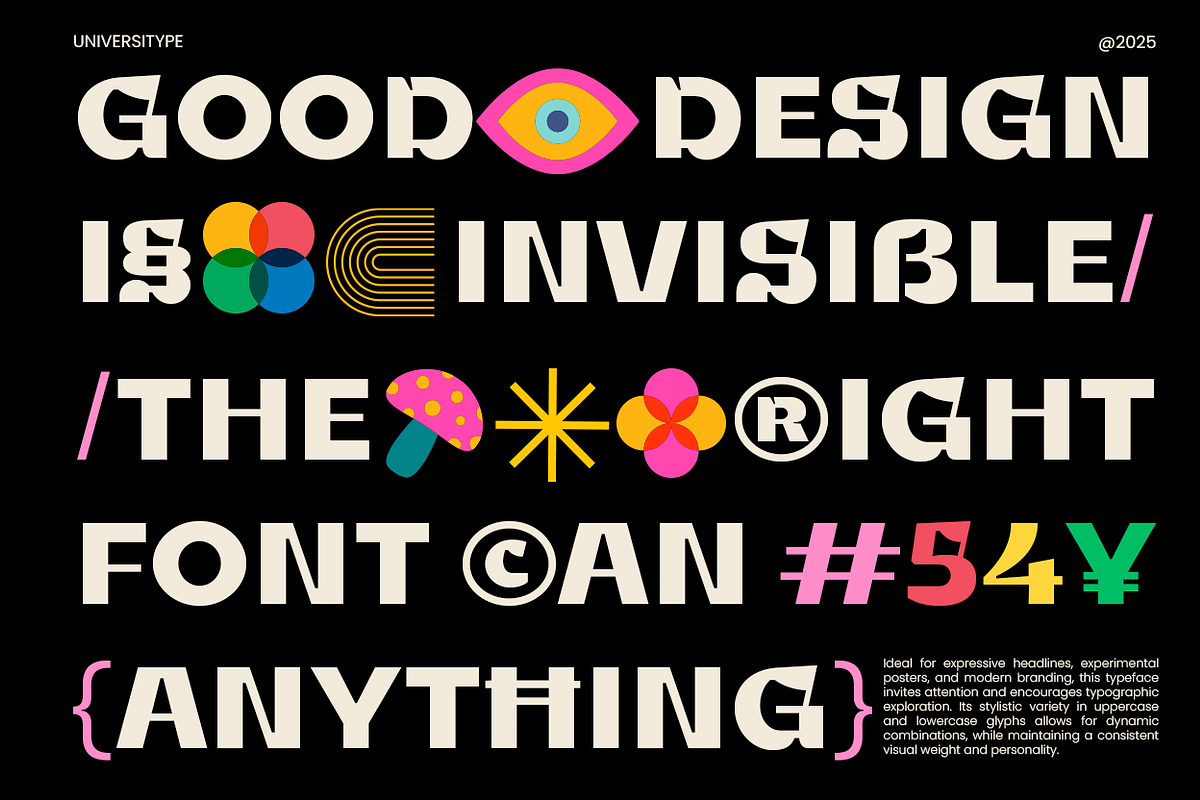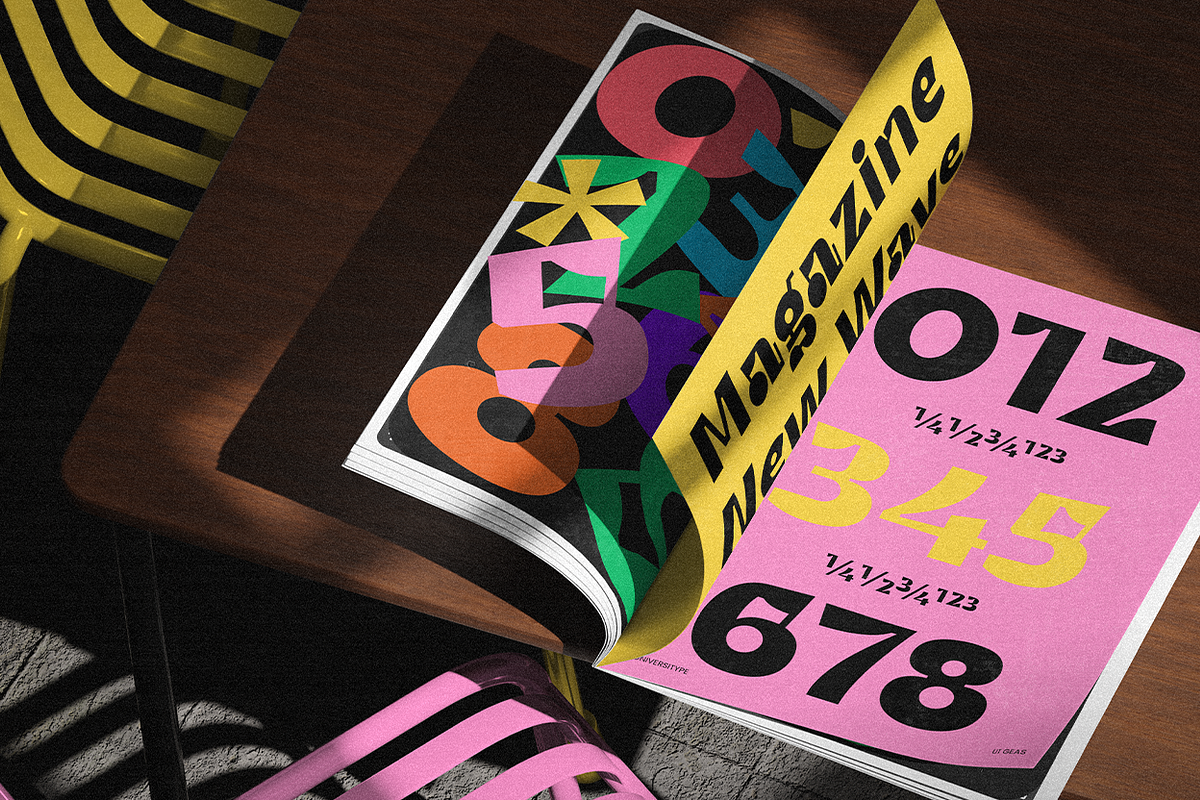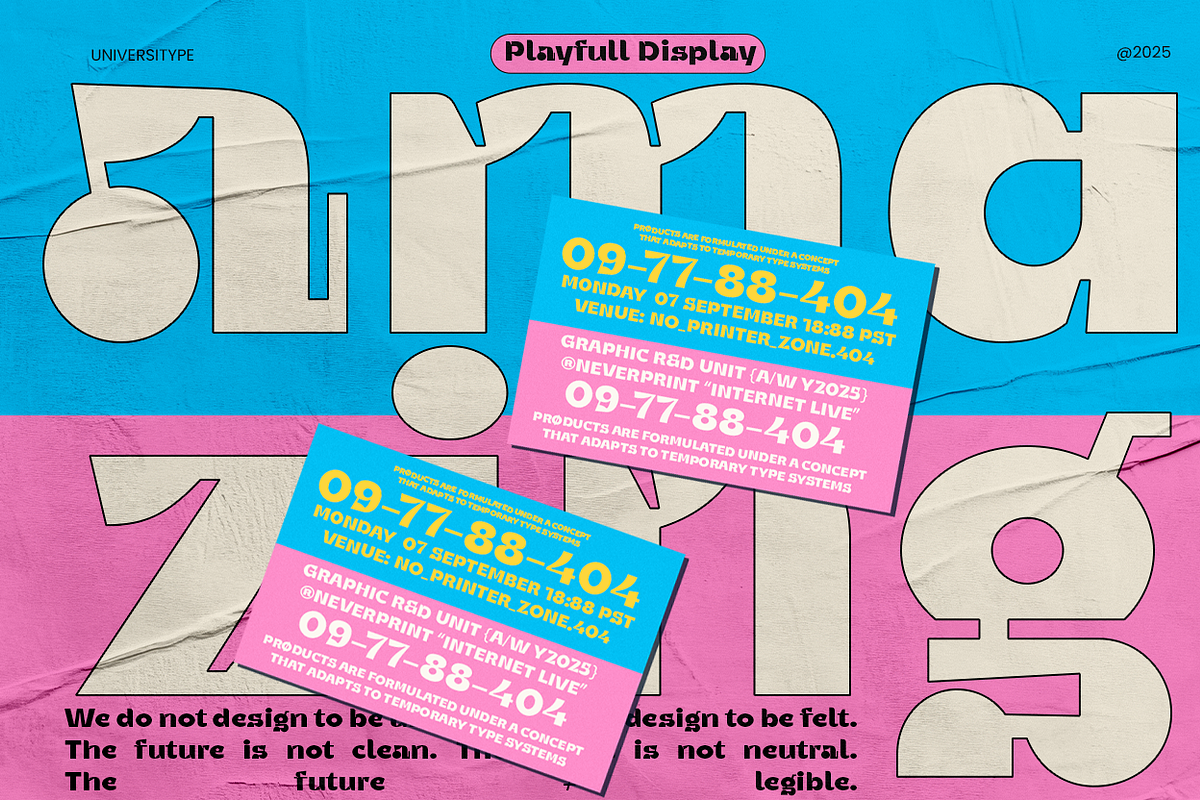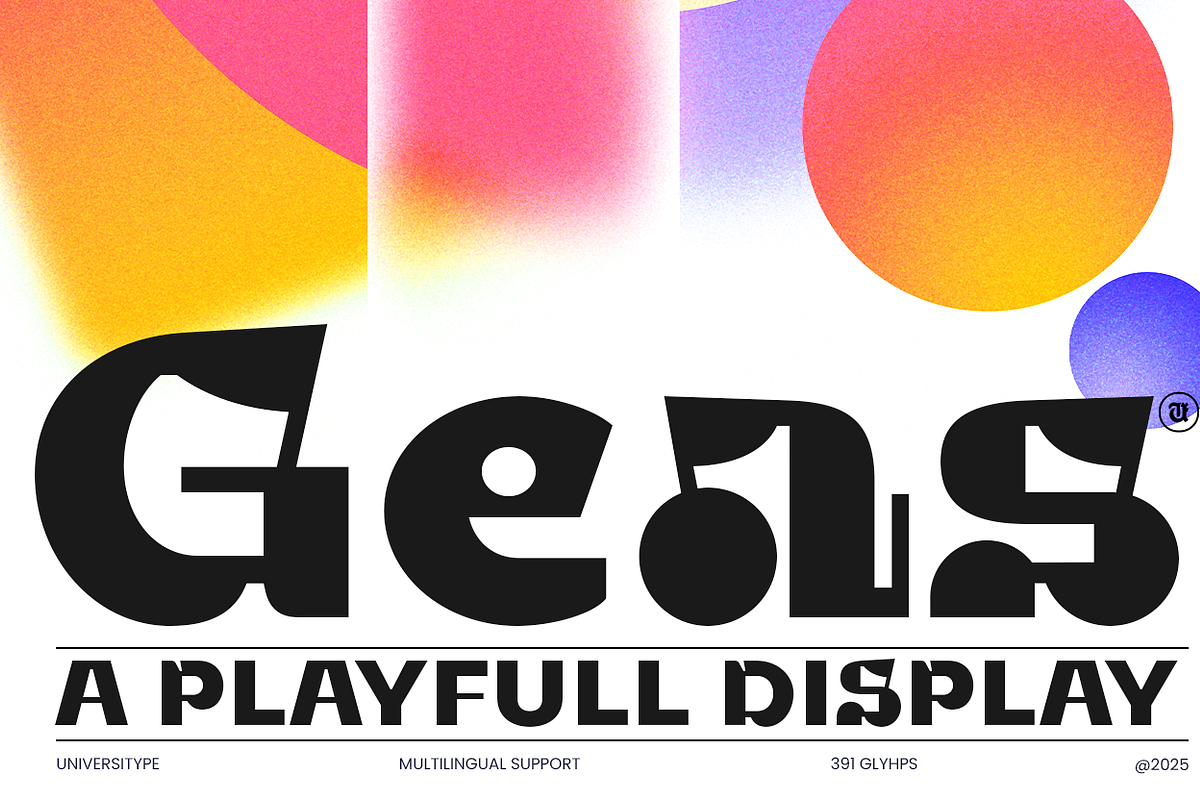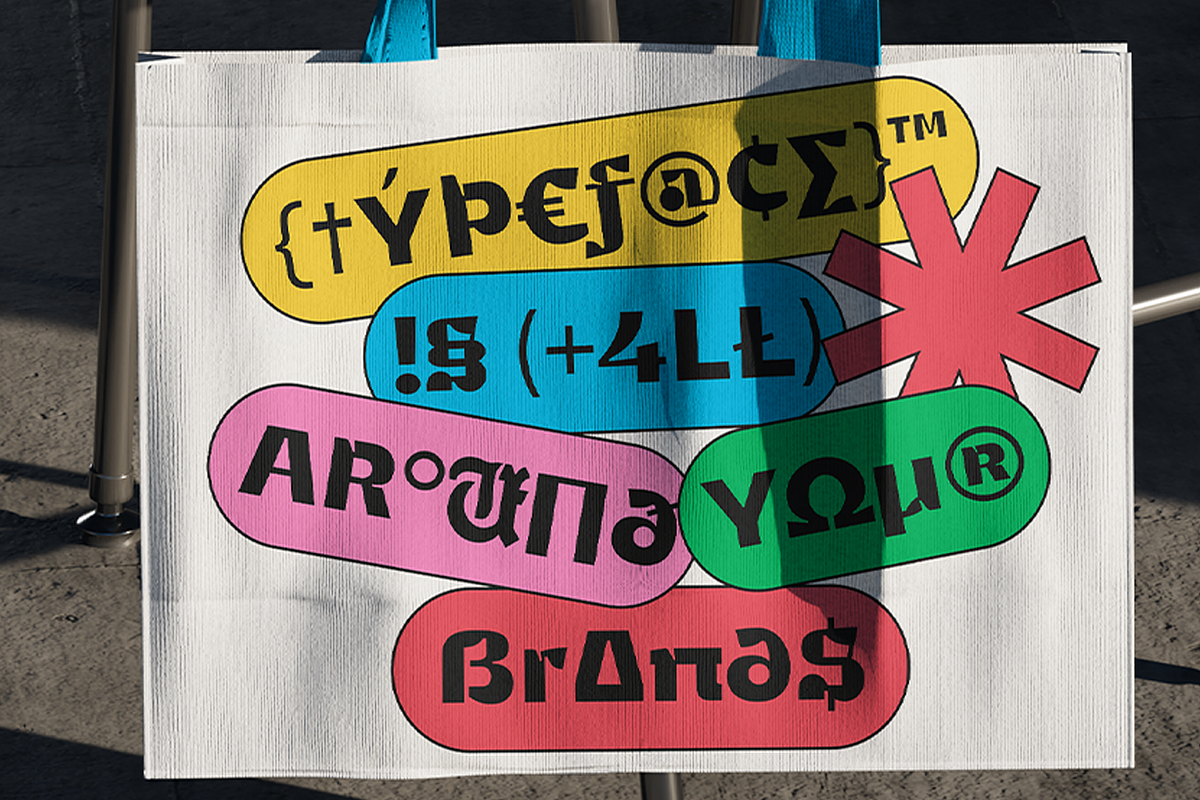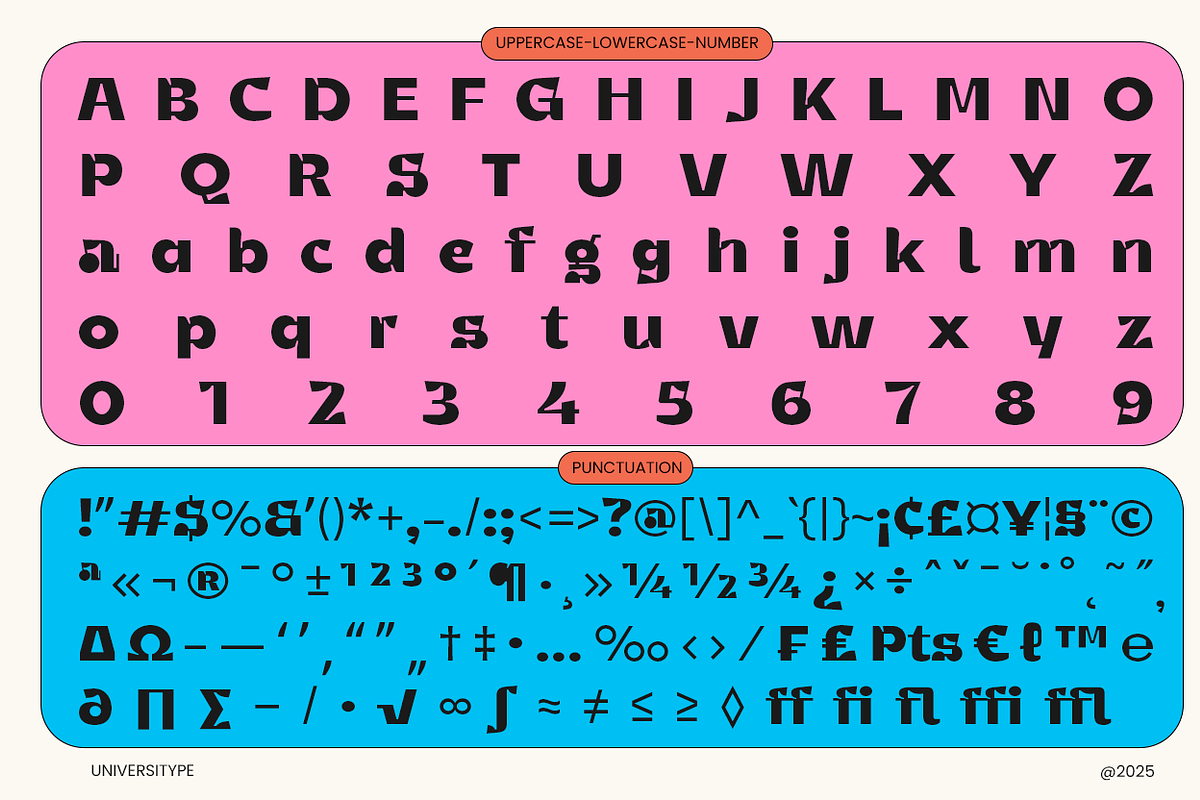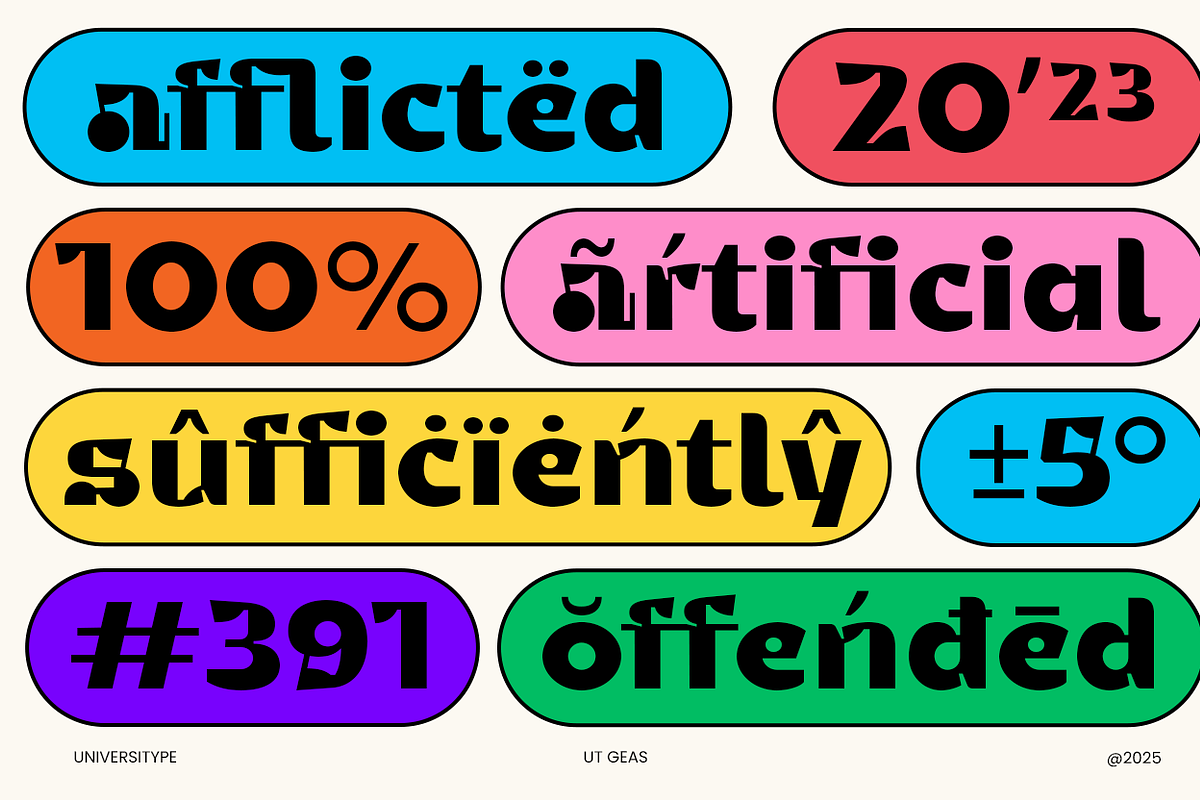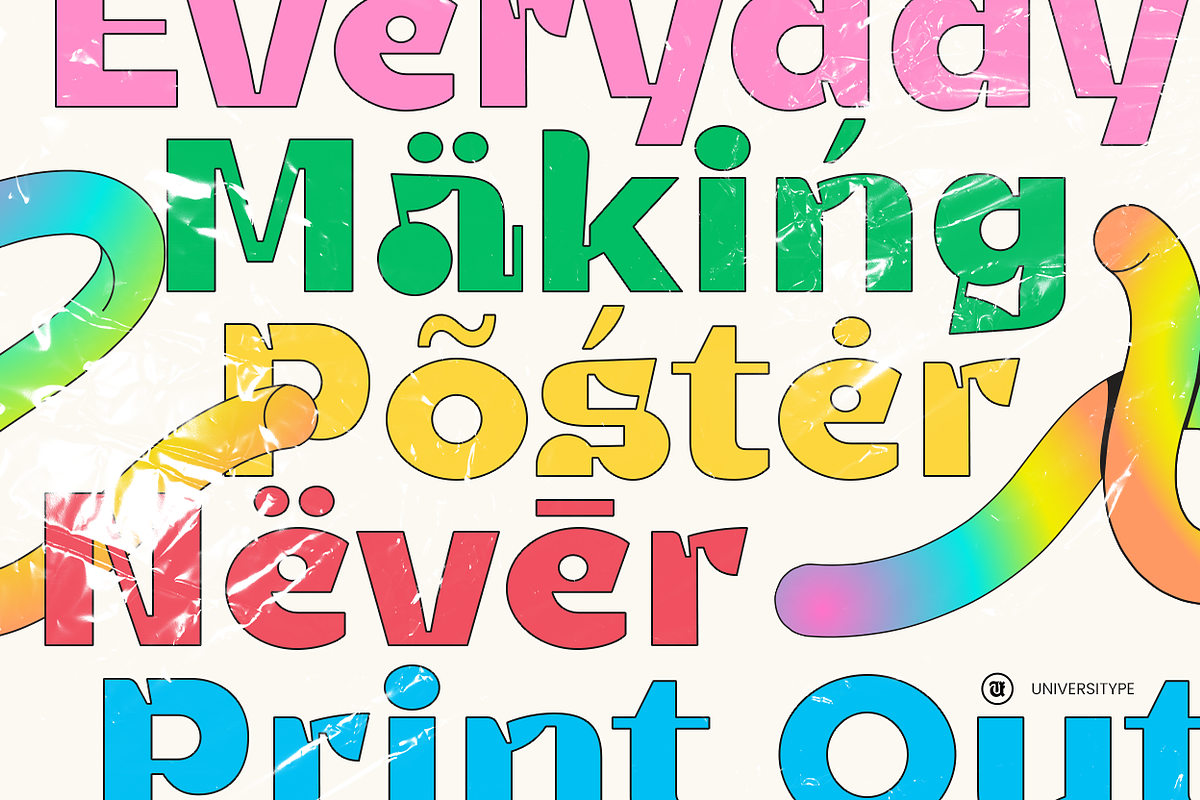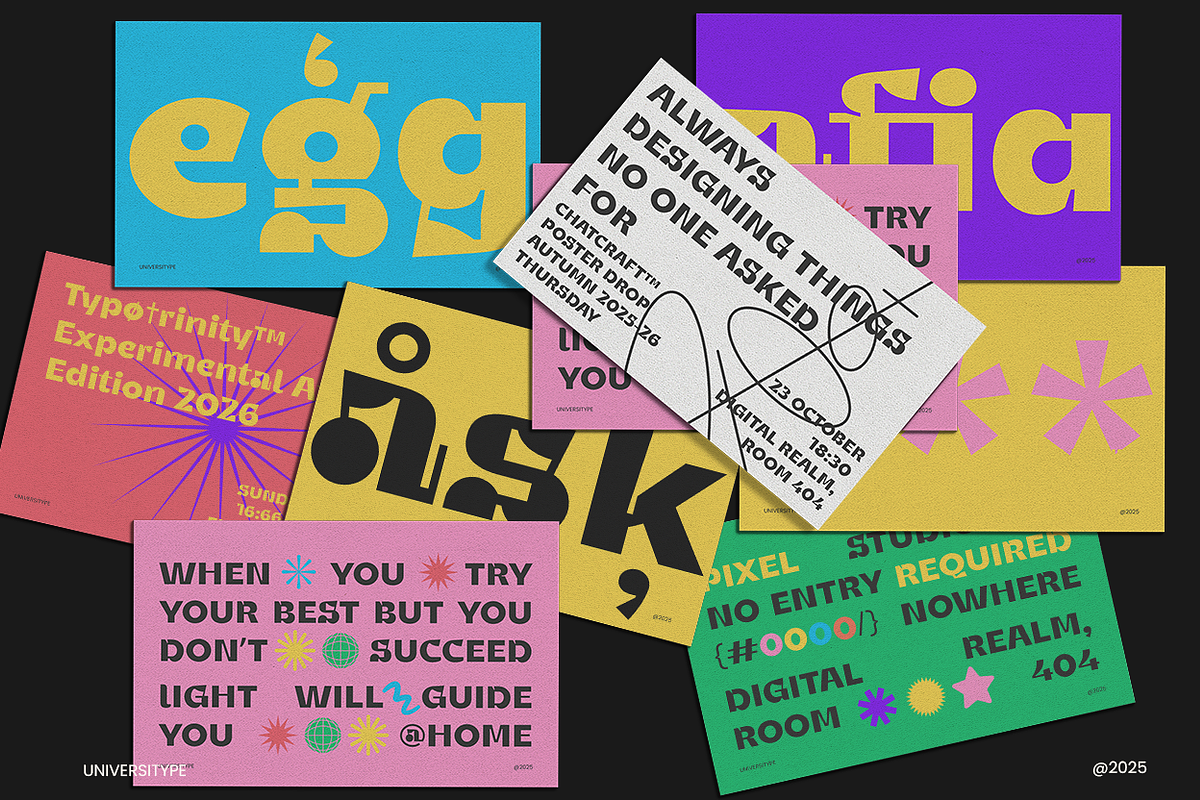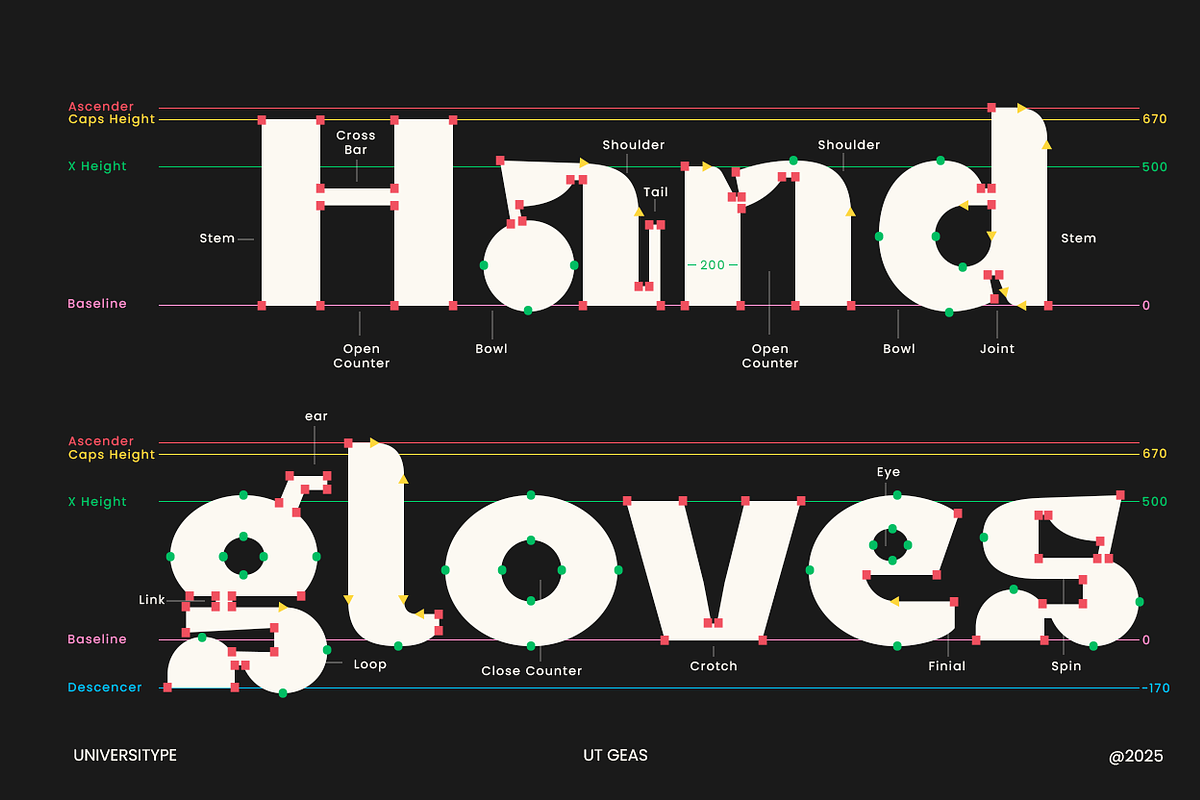
UT Geas Display
UT Geas is a font that doesn't just sit on the page—it leaps off it with an infectious energy. It's the perfect blend of retro charm and modern flair, designed to bring a smile to your face and a spark to your designs. Whether you're crafting a vibrant poster, a catchy logo, or a fun social media post, UT Geas adds a touch of whimsy that's hard to resist.
This font is for the creatives who aren't afraid to stand out. It's for designers who love to play with color, for marketers who want to grab attention, and for anyone who believes that typography can be a form of art. If you're looking to make a statement, UT Geas is your go-to font.
- Versatility: UT Geas shines in both print and digital media, making it a versatile choice for all your design needs.
- Multilingual Support: Speak to a global audience with ease, as UT Geas supports multiple languages.
- Dynamic Visuals: Its playful design is perfect for creating dynamic and eye-catching visuals.
- Legibility: Despite its fun style, UT Geas remains easy to read, ensuring your message is clear and impactful.
Inspiration Behind the Design:
UT Geas draws inspiration from the vibrant street art scene and the timeless charm of retro typography. It's a nod to the past with a wink to the future, capturing the spirit of creativity and freedom that defines the best of both worlds.
- Branding: Give your logo or brand a unique and memorable look.
- Marketing Materials: Make your posters, flyers, and brochures pop with UT Geas.
- Social Media: Create engaging posts that stand out in the feed.
- Packaging: Add a playful touch to product packaging that catches the eye.
- Features: Multilingual support, ligatures, stylistic alternates, and more to play with and customize your typography.
UT Geas is more than just a font; it's a tool for expression, a way to make your designs come alive. So go ahead, let your creativity run wild with UT Geas. It's time to make some noise!